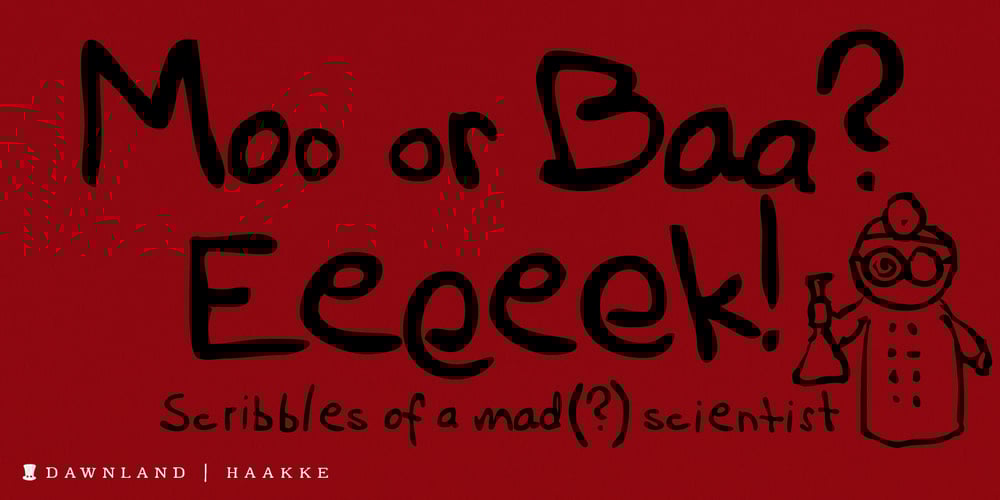
Haakke
Haakke font
Haakke Font Family was designed by Daniel Viberg and published by Dawnland. Haakke contains 4 styles and family package options. Haakke (or Håkke) – a casual, hand drawn (Stabilo OH pen, Fine) font with 4 alternates to all upper and lower case letters (a-z + å ä ö) as well as numbers for a realistic hand written look and feel! “Ligatures” have been created for double letters (TT, tt, ff, ll & LL (open type version of the font and open type compatible layout application required). Of course it holds all(?) the special characters that you will ever need. 451 glyphs… Haakke also includes symbols. Zodiak signs (letter a-l, upper case A-L write the corresponding name of the sign), planet signs (m-z, upper case M-Z write the corresponding name of the planet) triangles, squares and stars (from pentagrams (5 pointed) to Dodecagrams (12 pointed). (Write a 4, or shift-4 (“euro-sign”, european keyboard, or “dollar sign”, american keyboard) before your star or triangle and you will get a circle around it).